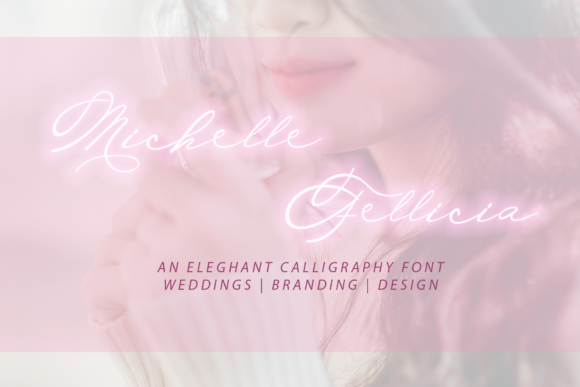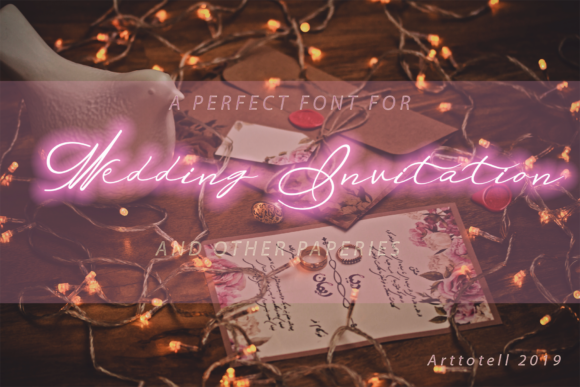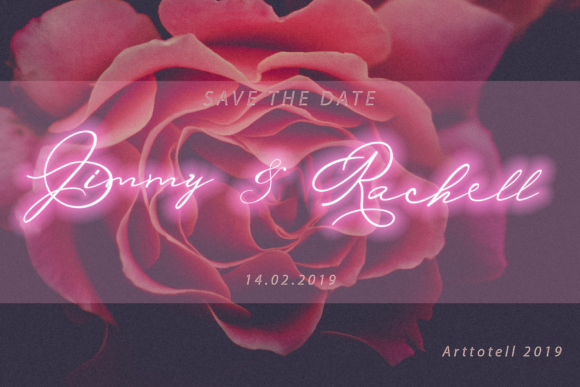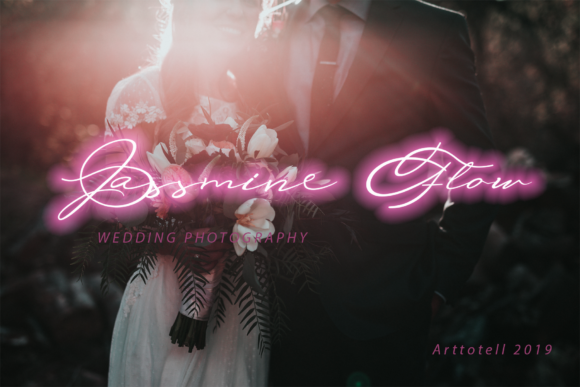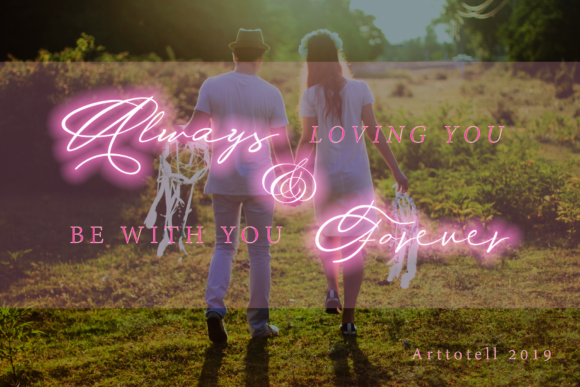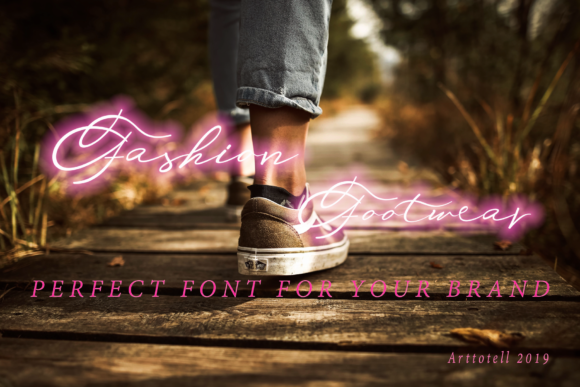
Introduction to Michelle Fellicia Font
There’s nothing quite like the feeling of creating something from scratch, the spark of inspiration that ignites when a project is just taking shape. For designers, this moment is what makes it all worthwhile – the chance to bring a vision to life. And, when it comes to adding that special touch, a beautiful font can make all the difference. That’s where the Michelle Fellicia Font comes in – a stunning handwritten font that’s perfect for giving your creative project that extra oomph.
With its natural and elegant calligraphy look, the Michelle Fellicia Font is a design resource that’s sure to elevate your work. Whether you’re looking for a high-quality font to add a touch of sophistication to your designs or simply want a free download to give your projects a personal touch, this font has got you covered. Its stylish signature style and four unique variations make it an ideal choice for a wide range of creative projects, from business cards and invitations to photography and fashion designs.
Key Features of Michelle Fellicia Font
- High-quality design resource for creative projects, perfect for various applications including logos, branding, and typography.
- Includes a range of weights and styles, from light to bold, providing versatility for different design needs.
- Designed with a modern aesthetic, suitable for a variety of creative projects, including digital and print media.
Honest Review: Michelle Fellicia Font
I recently had the opportunity to work with the Michelle Fellicia Font, and I must say, it’s a great addition to any design project. The font itself is quite versatile and offers a unique blend of elegance and sophistication. ✨
Here are a few things that work well with the Michelle Fellicia Font:
- Easy to read, even at small font sizes
- Works well in both digital and print designs
- Comes in a range of weights and styles
- No bold or italic variations
- Not suitable for use in logos or branding materials
- May require additional styling to achieve desired look
Overall, I’m impressed with the Michelle Fellicia Font and would recommend it for any creative project. Just be aware of its limitations and use it in contexts where it will shine. ✨
Michelle Fellicia Font is ideal for creative projects requiring a high-quality, elegant font. Use it for wedding invitations, branding materials, or any design that requires a sophisticated touch.